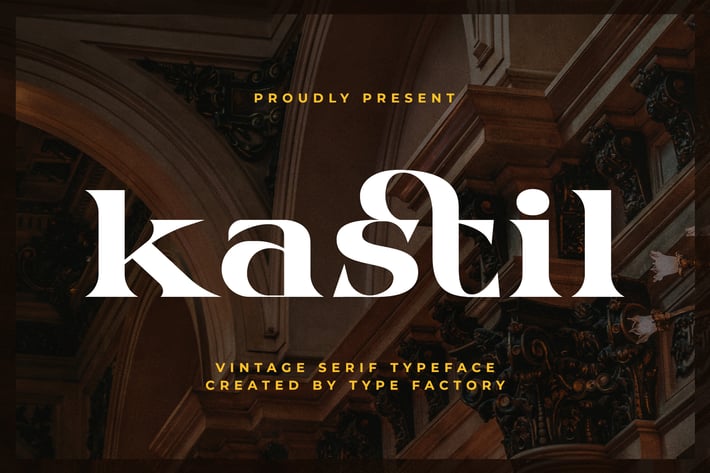
Kastil - Vintage Serif Typeface
Kastil is a vintage serif typeface.
It combines a sense of cuteness, elegance, and vintage which makes it distinctive enough to give any project life and energy.
Itβs a gorgeous font that can be used beautifully for wedding invitations, eye-catching social media posts, cute greeting cards, and much more.